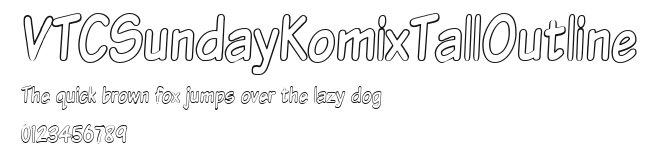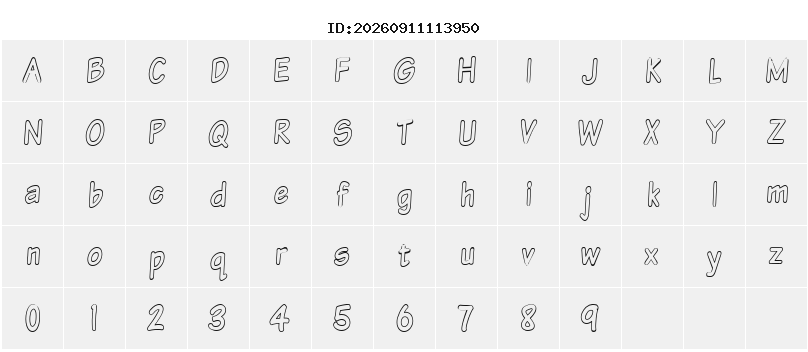
VTCSundayKomixTallOutline Preview
• Font Name: VTCSundayKomixTallOutline
• Font Style: Outline
• Font ID: VTCVigilanteTypefaceCorporation,: VTCSundayKomixTallOutline: 1999
• Full Font Name: VTCSundayKomixTallOutline
• Version: 1999; 1.0, initial release
• PostScript Name: VTCSundayKomixTallOutline
• Character Count: 98
• Designer: WolfBainX
• Description: VTCSundaykomix is a trademark of the VTC Vigilante Typeface Corporation.Copyright (c) VTC Vigilante Typeface Corporation, 1999. All rights reserved. Distroware! Spread like the Plague !
About VTCSundayKomixTallOutline.ttf
VTCSundayKomixTallOutline.ttf is a modern, elegant sans-serif font designed for ultimate readability and visual harmony. Perfect for branding, headlines, web design, and print materials.